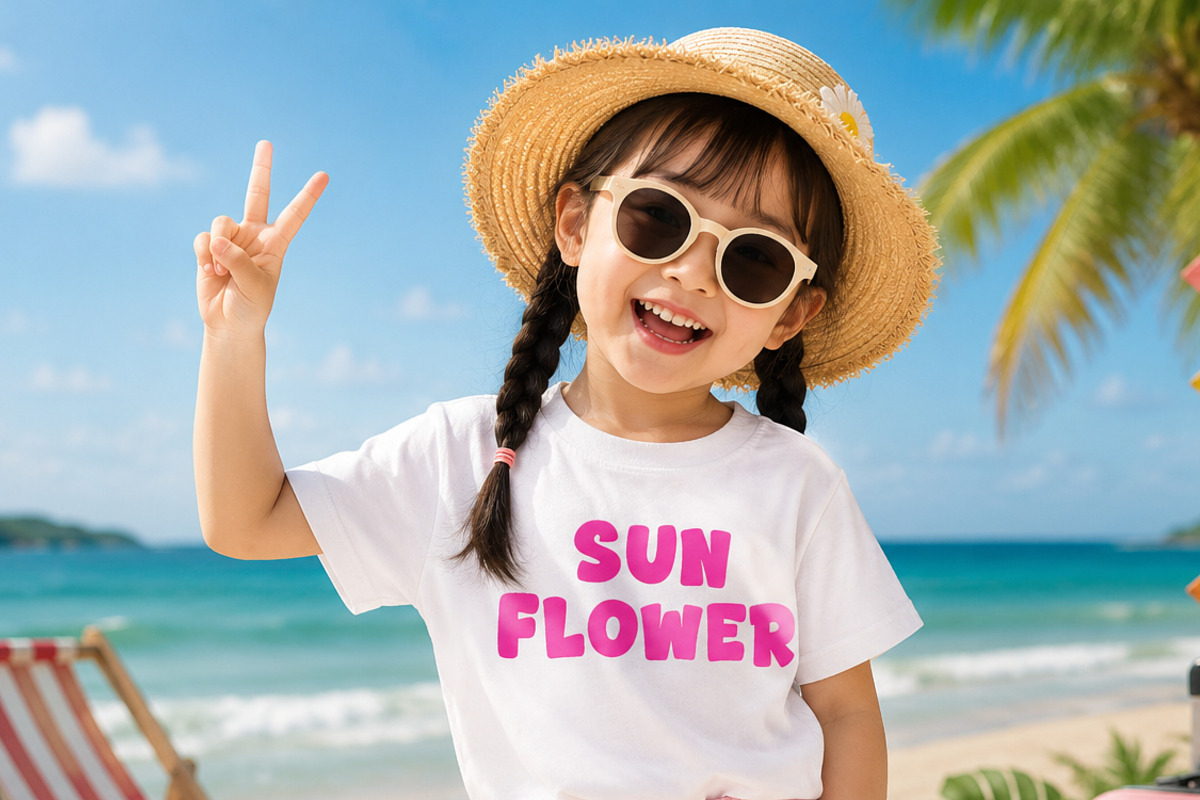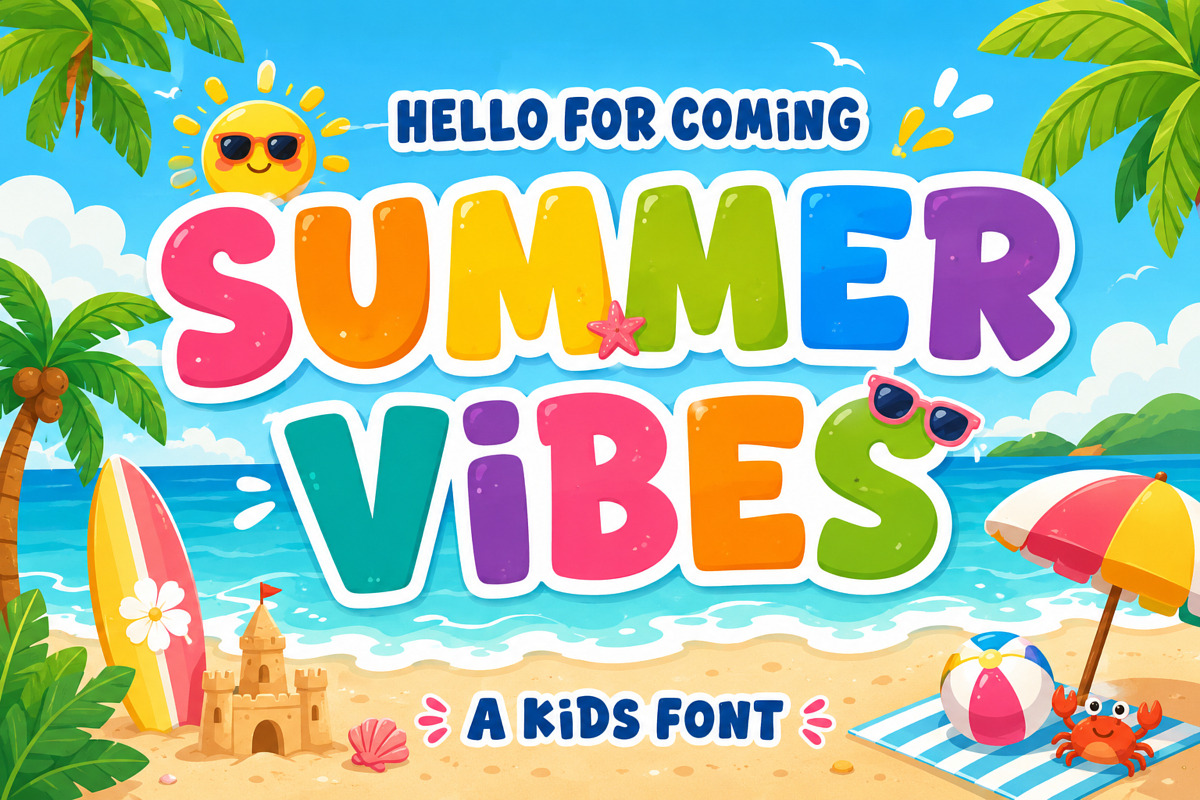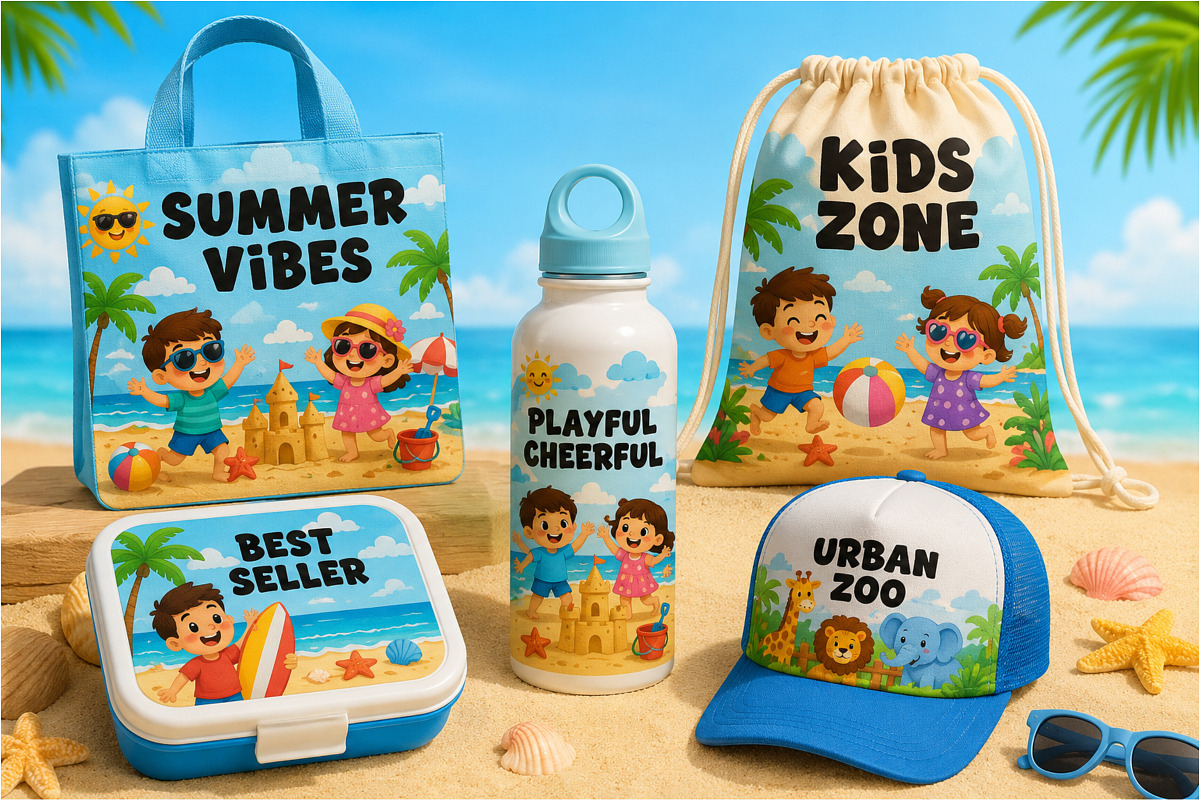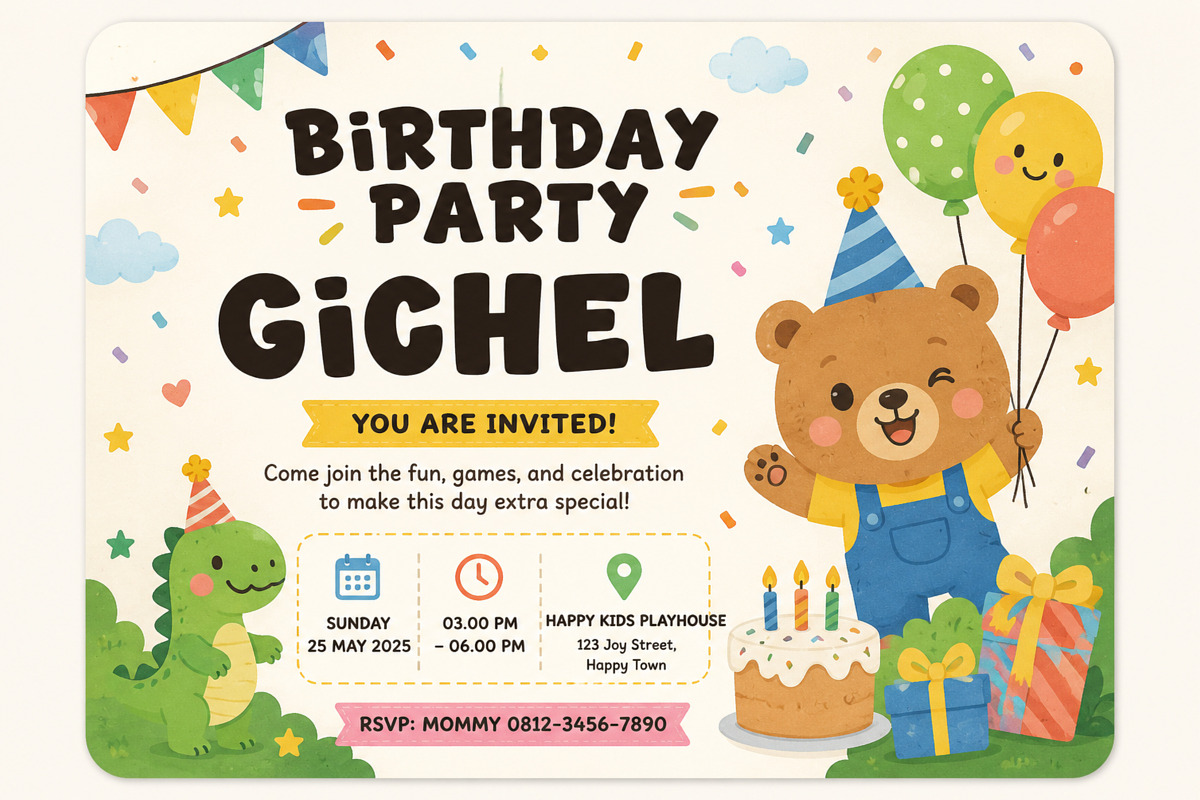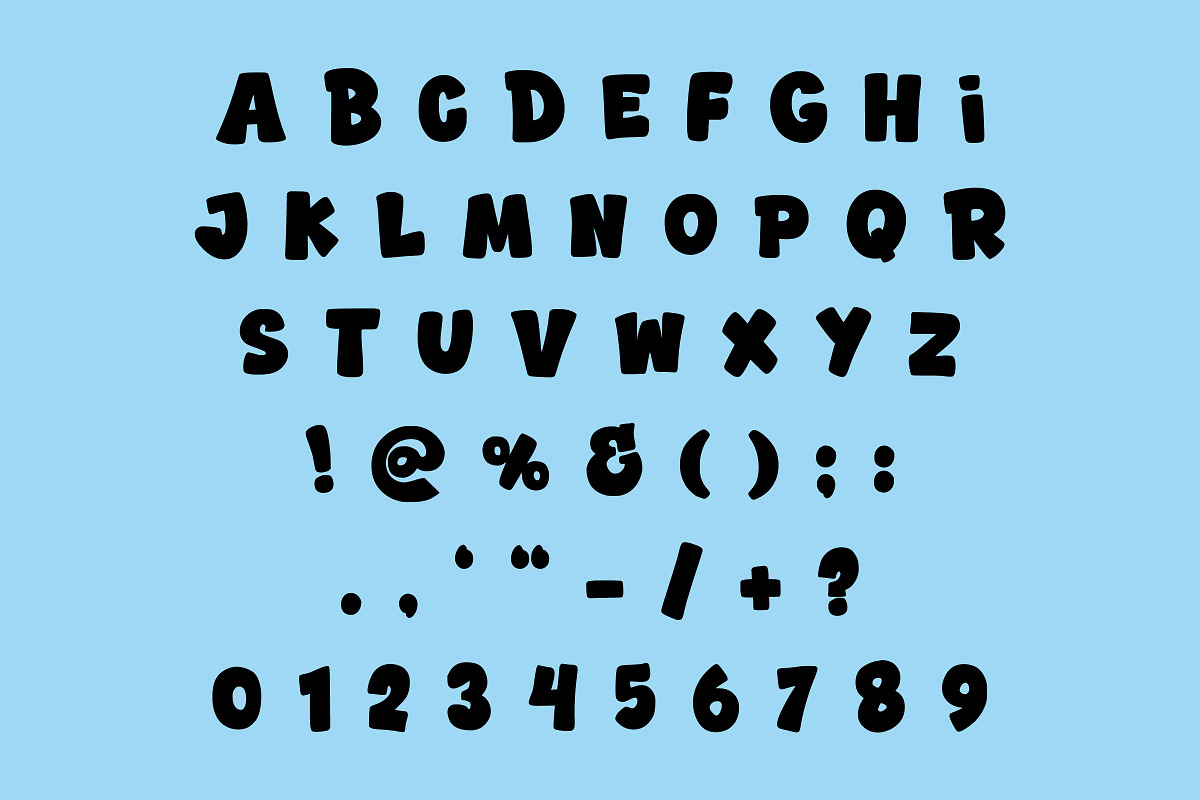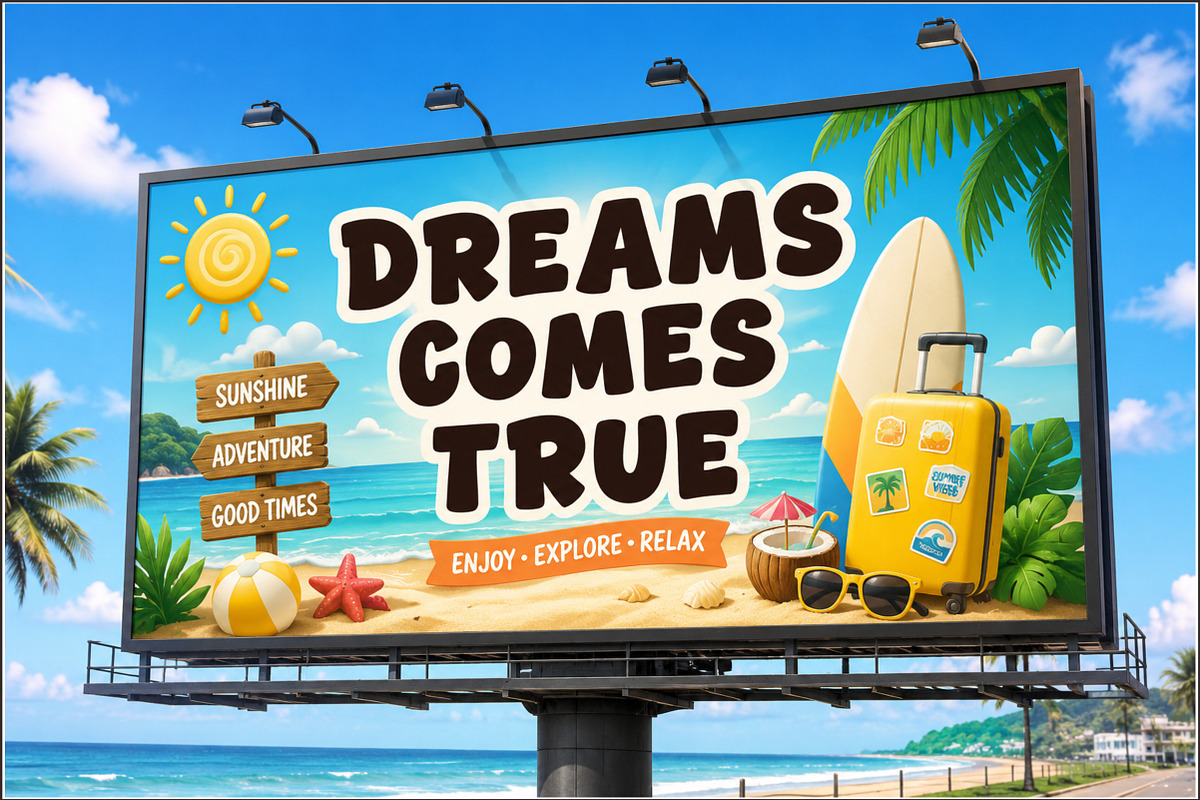
Summer Vibes
Summer Vibes is a cheerful and playful display font inspired by sunny beach days, tropical vacations, and happy childhood memories. Featuring bold rounded letters and colorful summer vibes, this font is perfect for kids’ products, invitations, birthday decorations, t-shirts, posters, stickers, classroom materials, branding, and creative crafting projects. Add a fun and energetic touch to your designs with this adorable kids font.